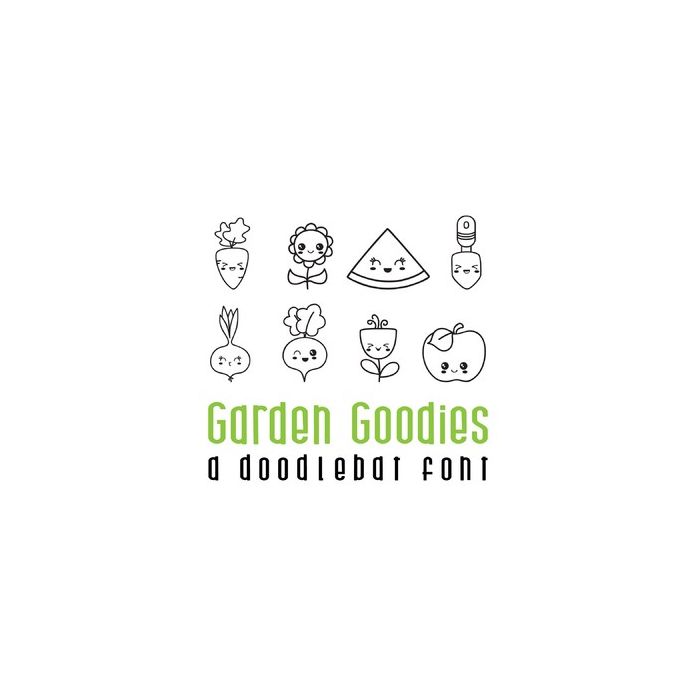
This fun doodlebat font features 26 adorable kawaii style garden items from fruit, veggies and florals.. Perfect for cards, gifts, decor, crafts, scrap book pages, planner stickers and more!